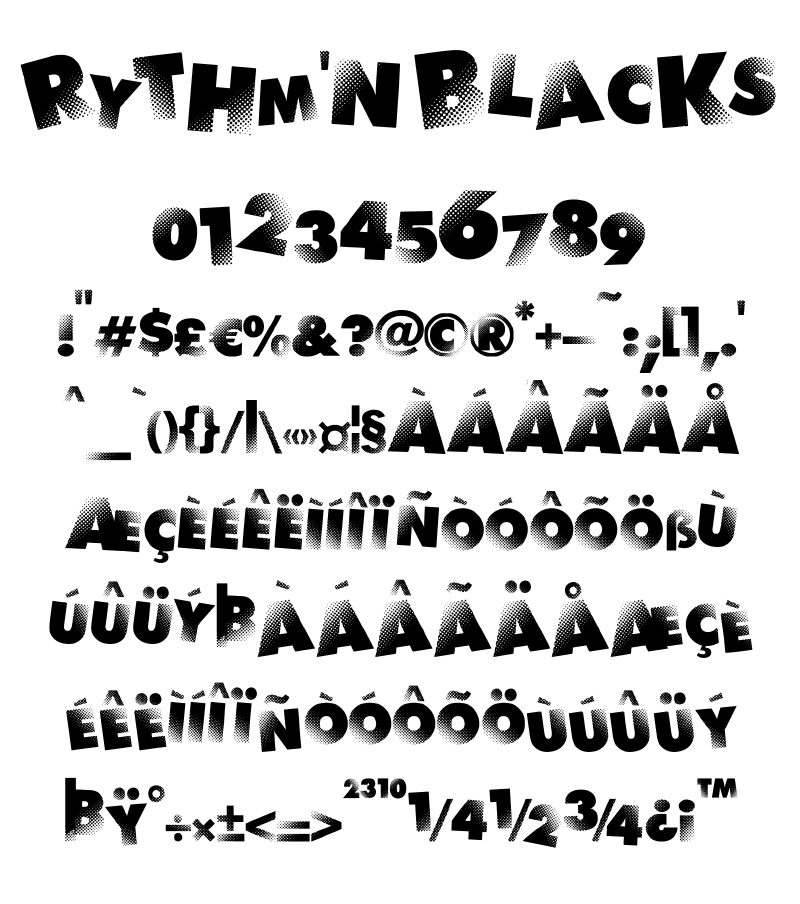
Rythm N Blacks by Imagex is a free eroded decorative display font with hefty, uneven capitals cut through by shifting halftone fields. The letters tilt and jostle.
Posters are its strongest setting, especially for music and comedy events that can use the scattered dots as part of the artwork. Packaging and merchandise gain lively print texture from the irregular silhouettes. In magazine design, it can turn a feature title into an image echoing screen-printing and photocopied graphics.